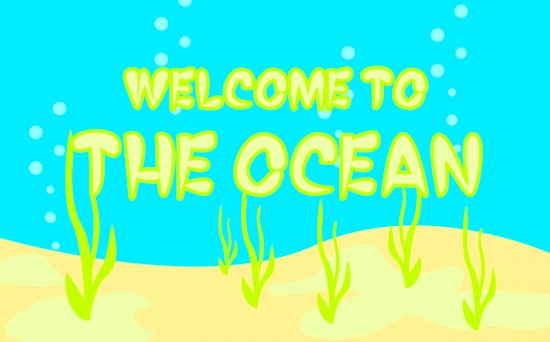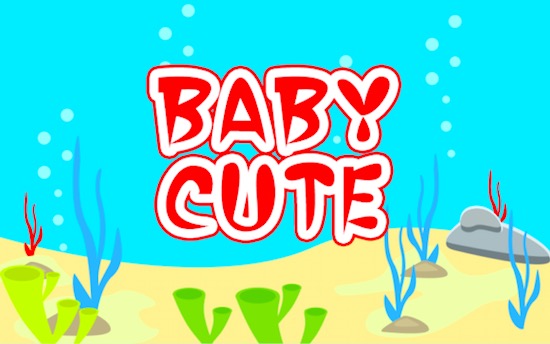
Introducing Baby Shark Font. It’s an elegant, casual, and charming display font that was designed and publisedh by Inermedia STUDIO. When using this font, you can see that it has a unique friendly feel.
Baby Shark Comic Font